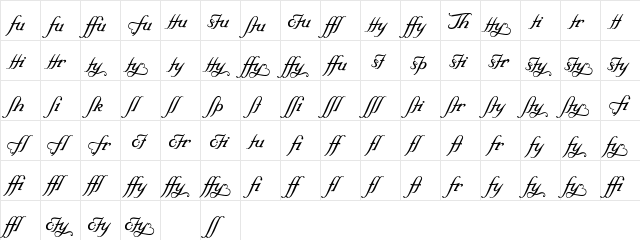
Elegeion Script Ligatures Regular
Elegeion Script Ligatures flows with the natural rhythm of handwritten lettering, making it ideal for designs that call for warmth and personal expression.
Font Pairing: Combine Elegeion Script Ligatures with a simple geometric sans for maximum contrast — the tension between flowing curves and clean structure is a classic typographic pairing.
Pro Tip: Use Elegeion Script Ligatures for short runs of text — names, titles, or taglines. Extended body copy in script faces tires the eye quickly.